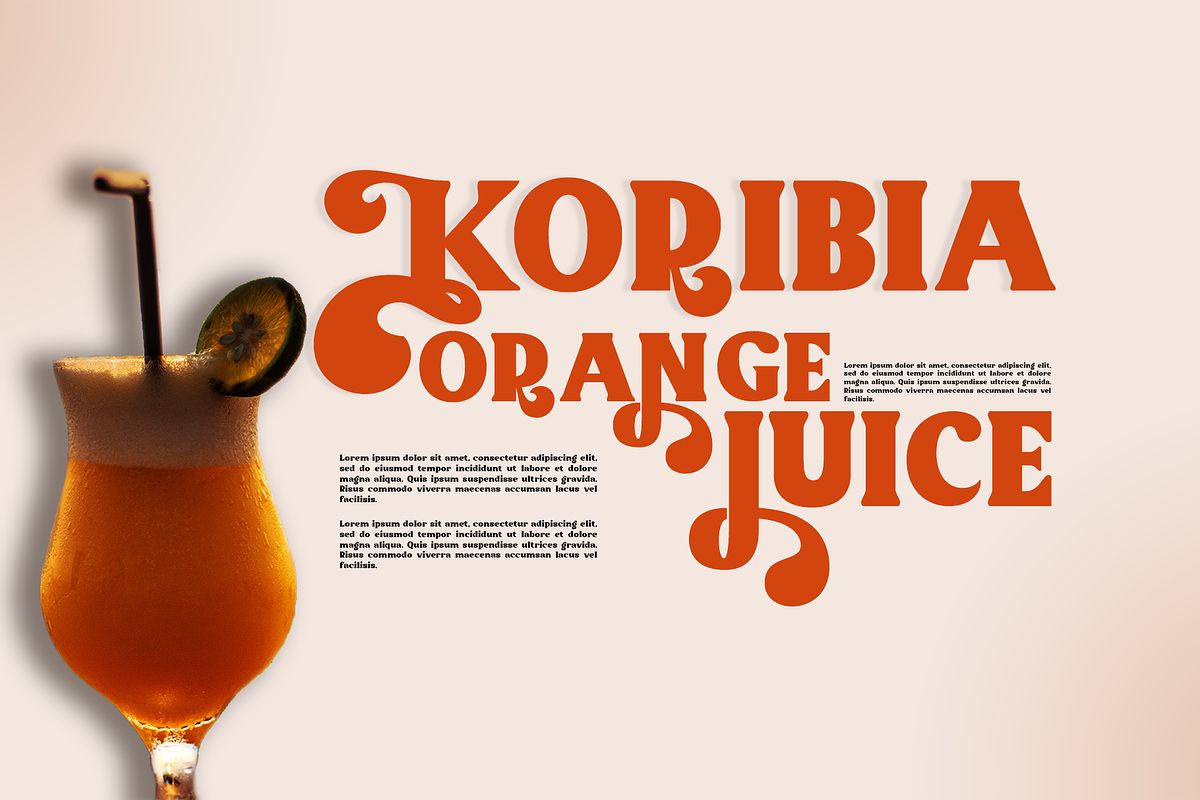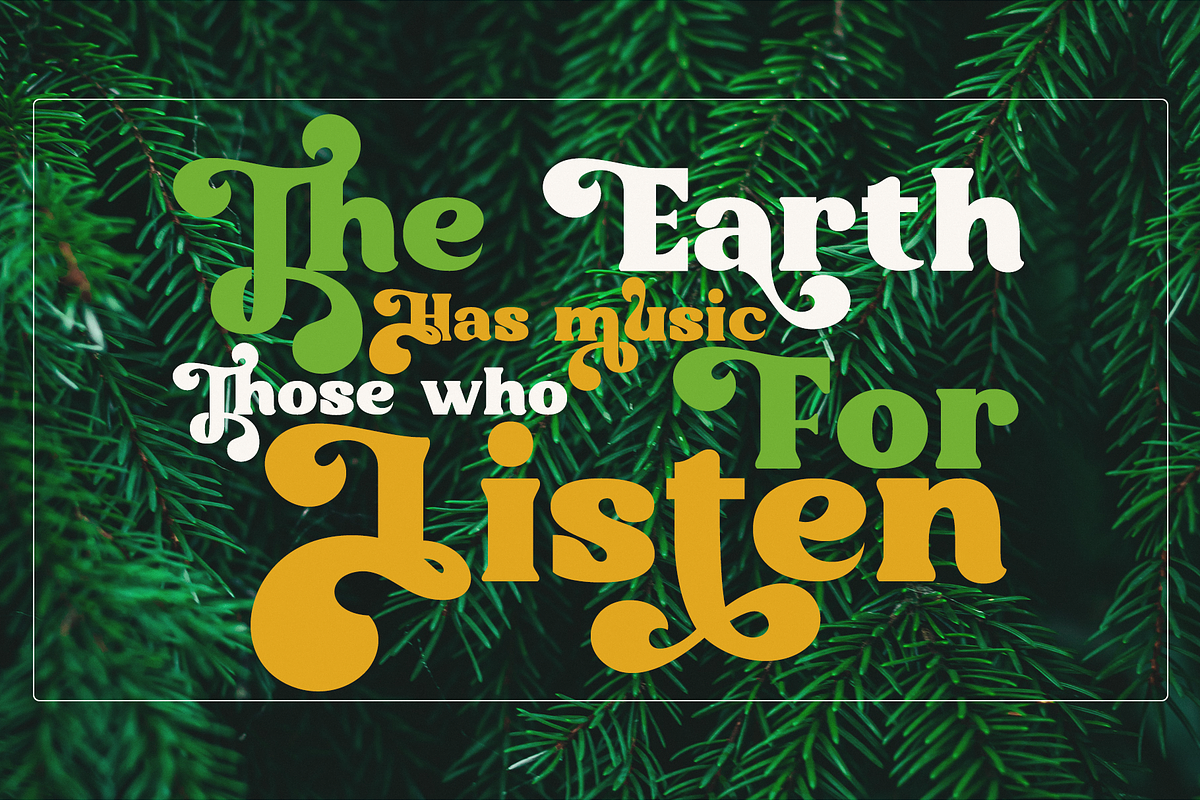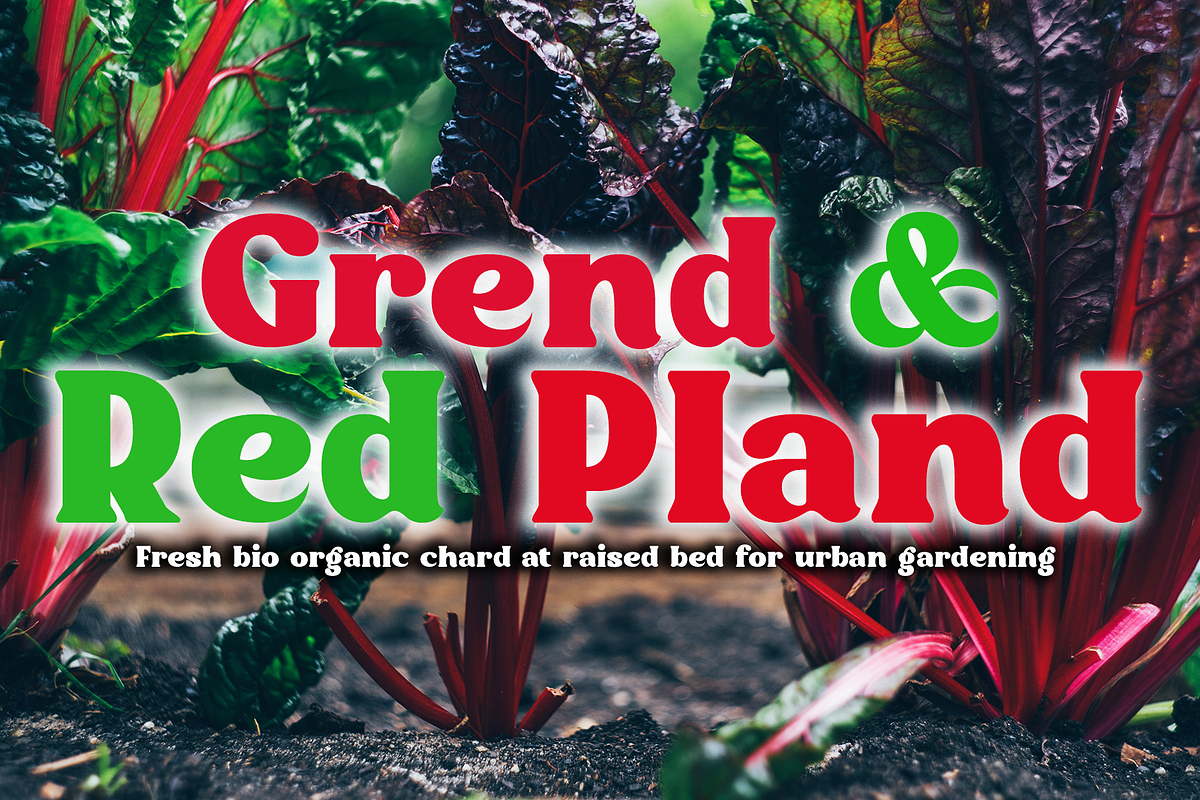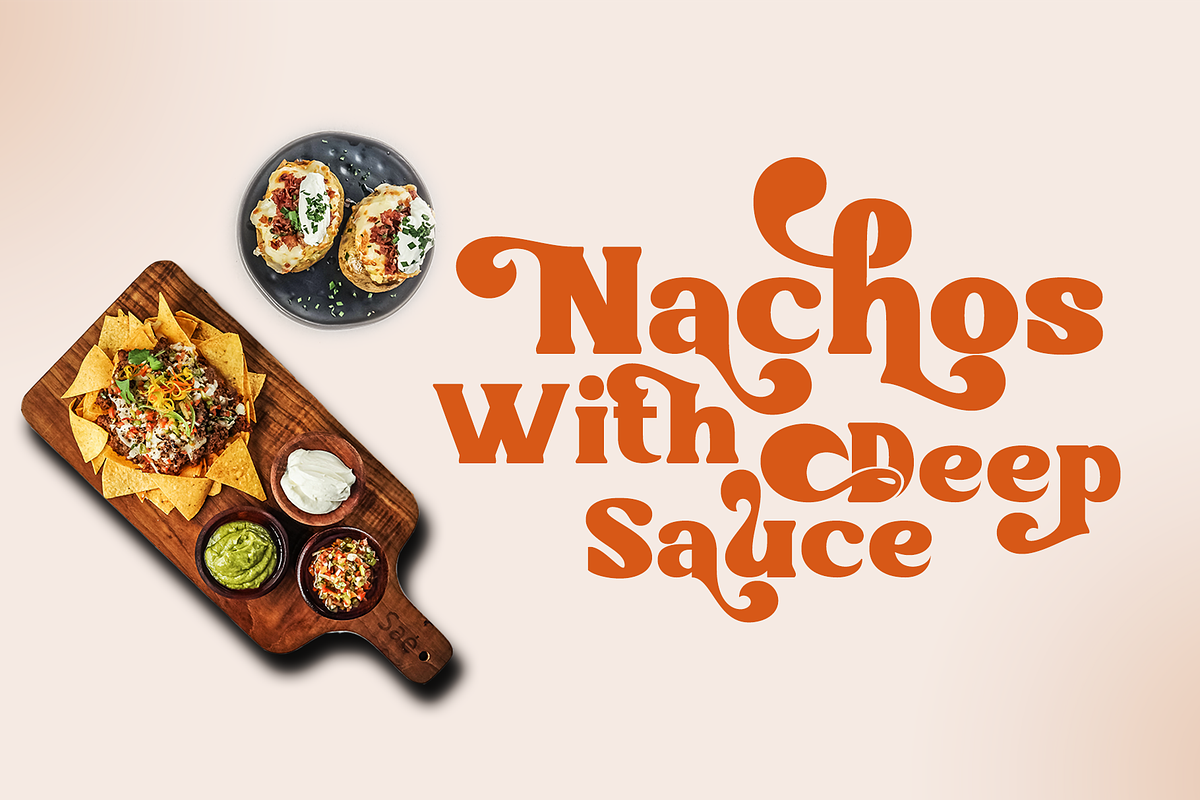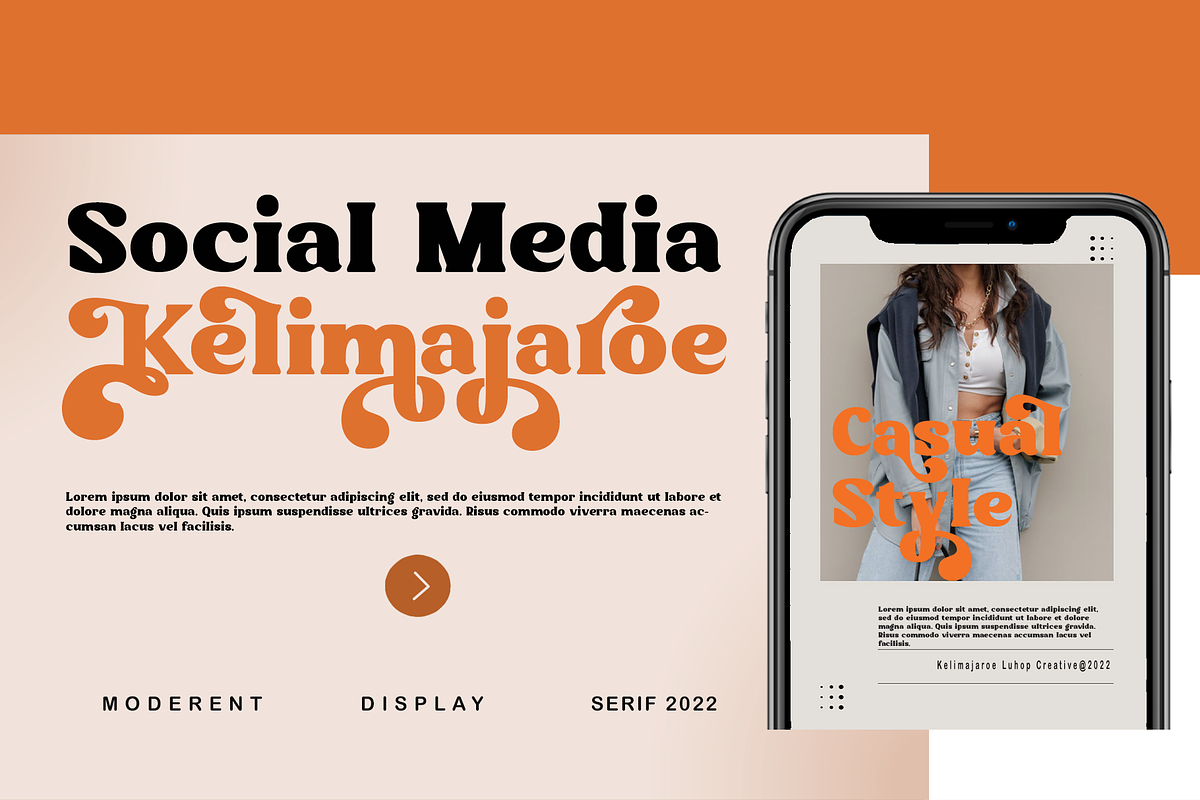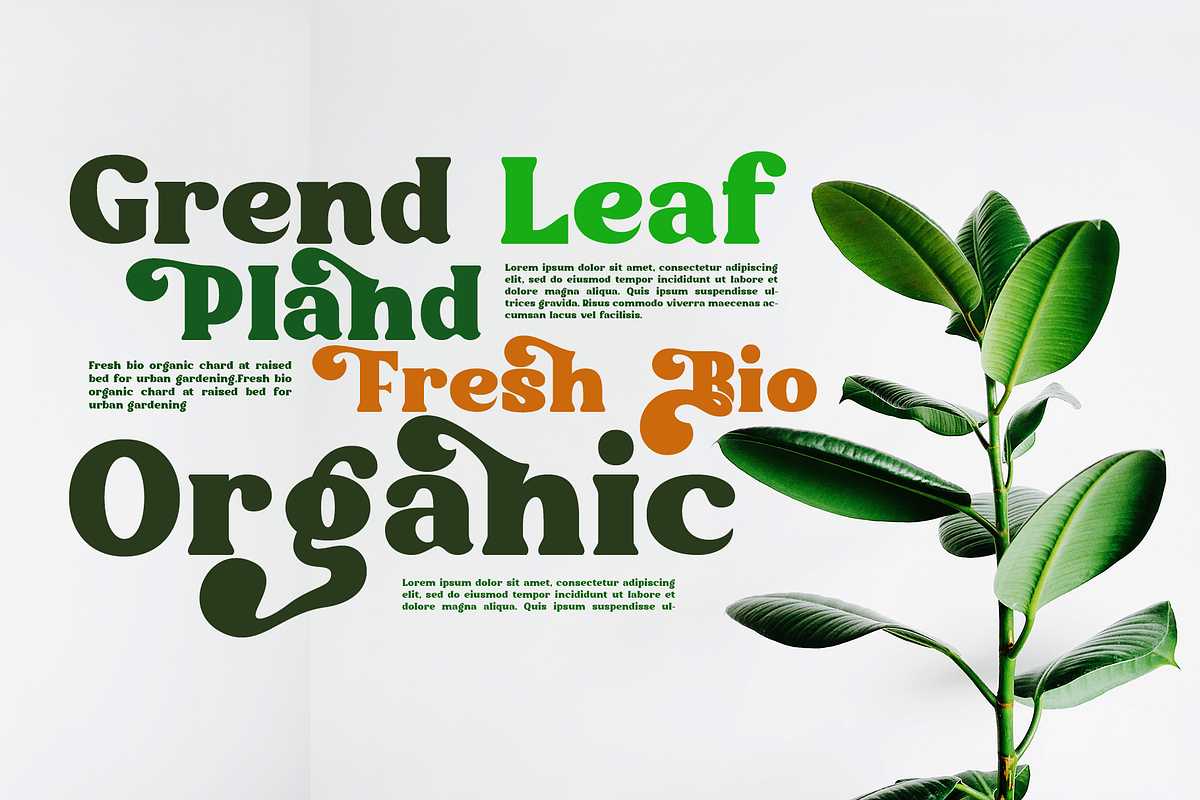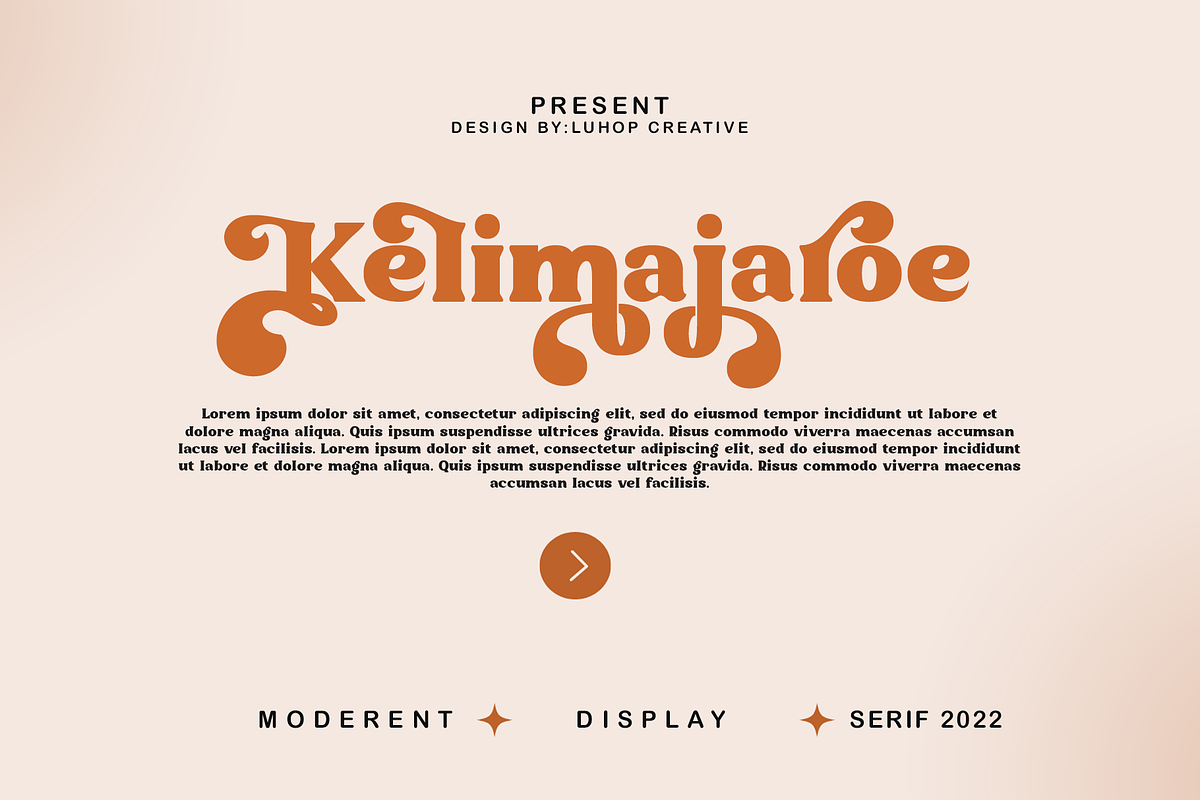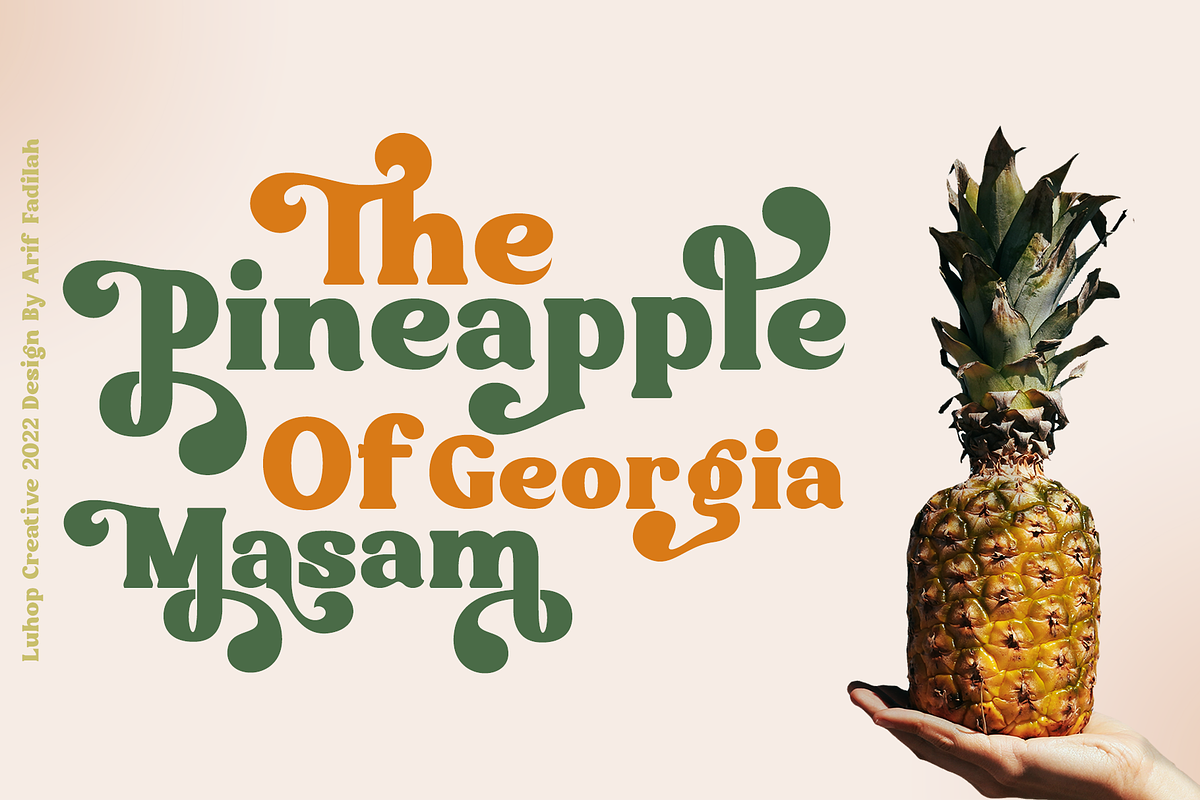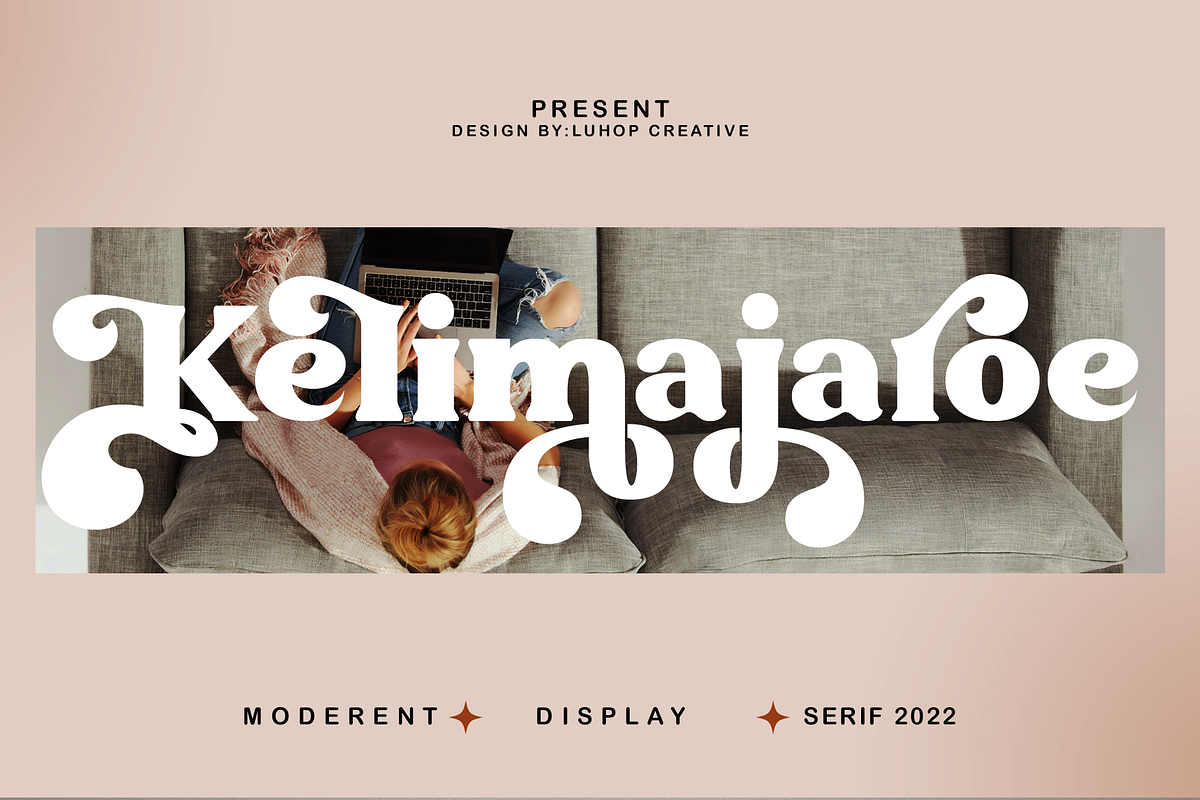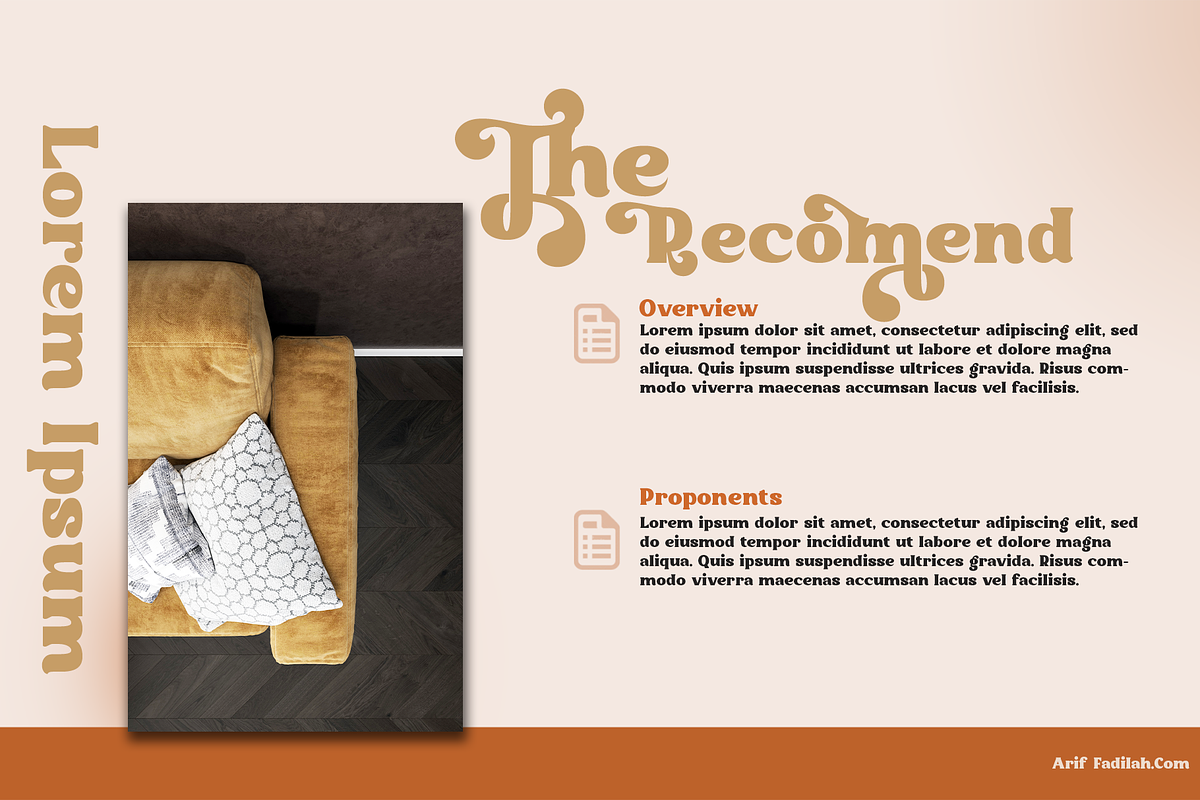
Kelimajaroe | Bold Vintage
Kelimajaroe is a bold vintage style serif font beautiful and soft, fonts in a contemporary style that can make your design projects look modern, elegant and luxurious. Made with many alternative characters to make it easier for you to do various design projects and give you fun while typing.
Kelimajaroe is a great typeface for contemporary graphic design with that certain feeling of familiarity. It works well on them to designs like social media posts, logos, merchandise, book covers, posters, video content thumbnails, quotes, landing pages, wedding, or any display use, as well as in headlines or shorter texts.
- Numeral
- Opentype Features & PUA Encoded
- Ligatures and
- Discretionary Ligatures